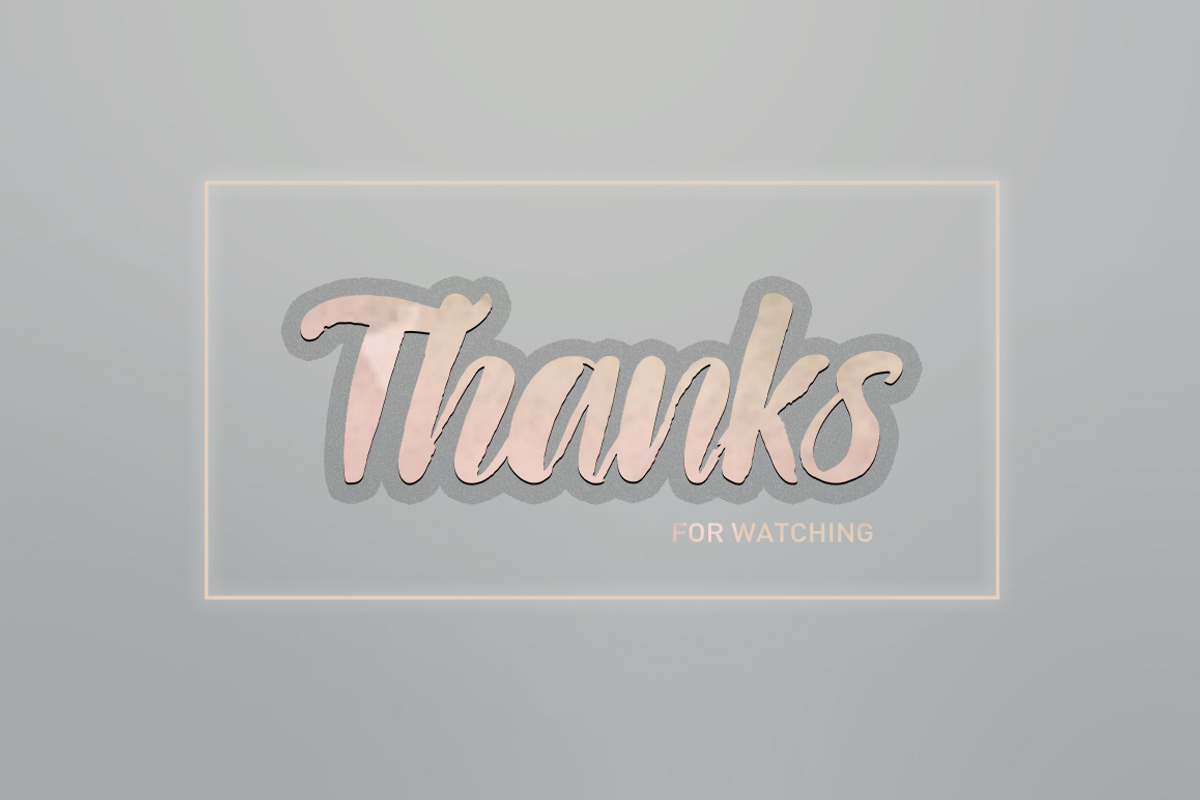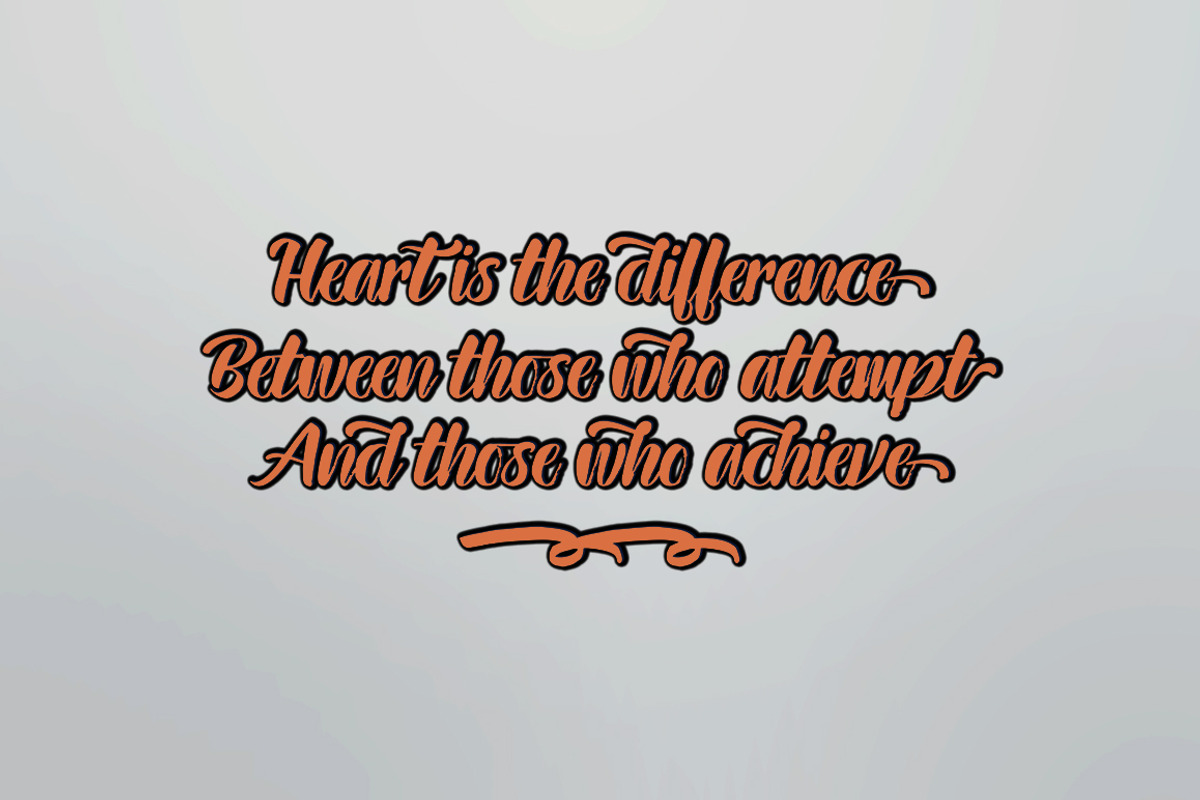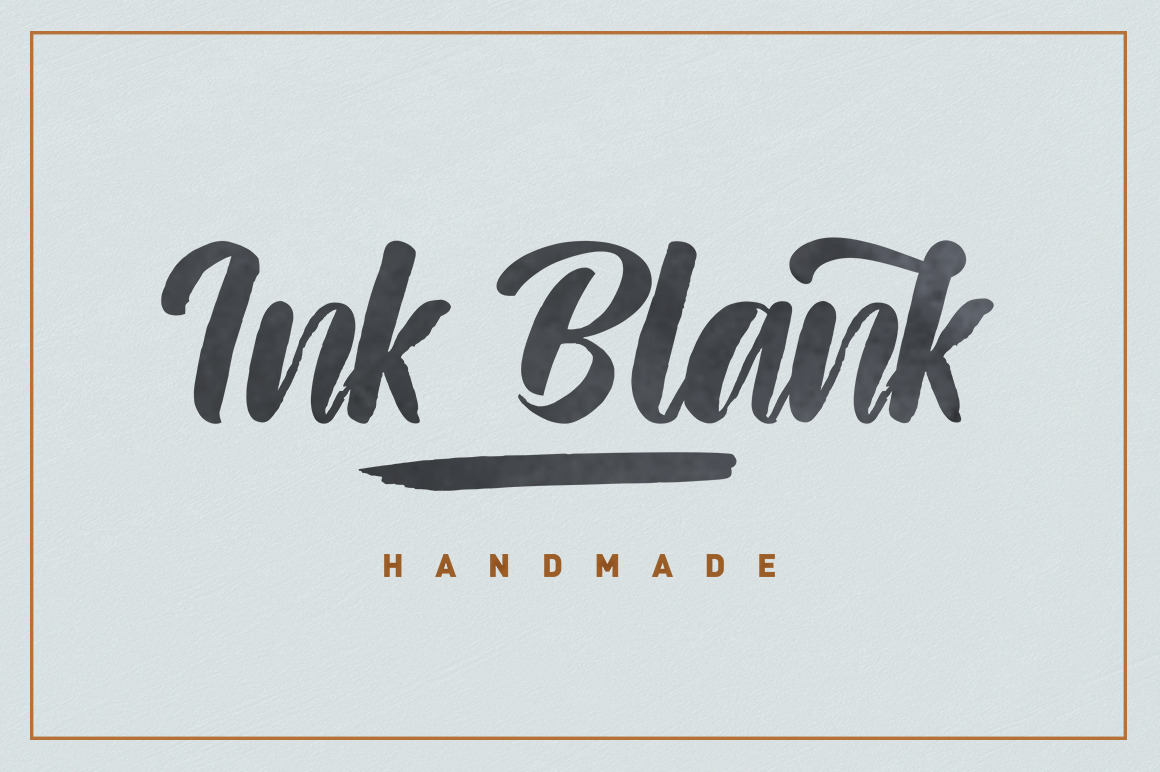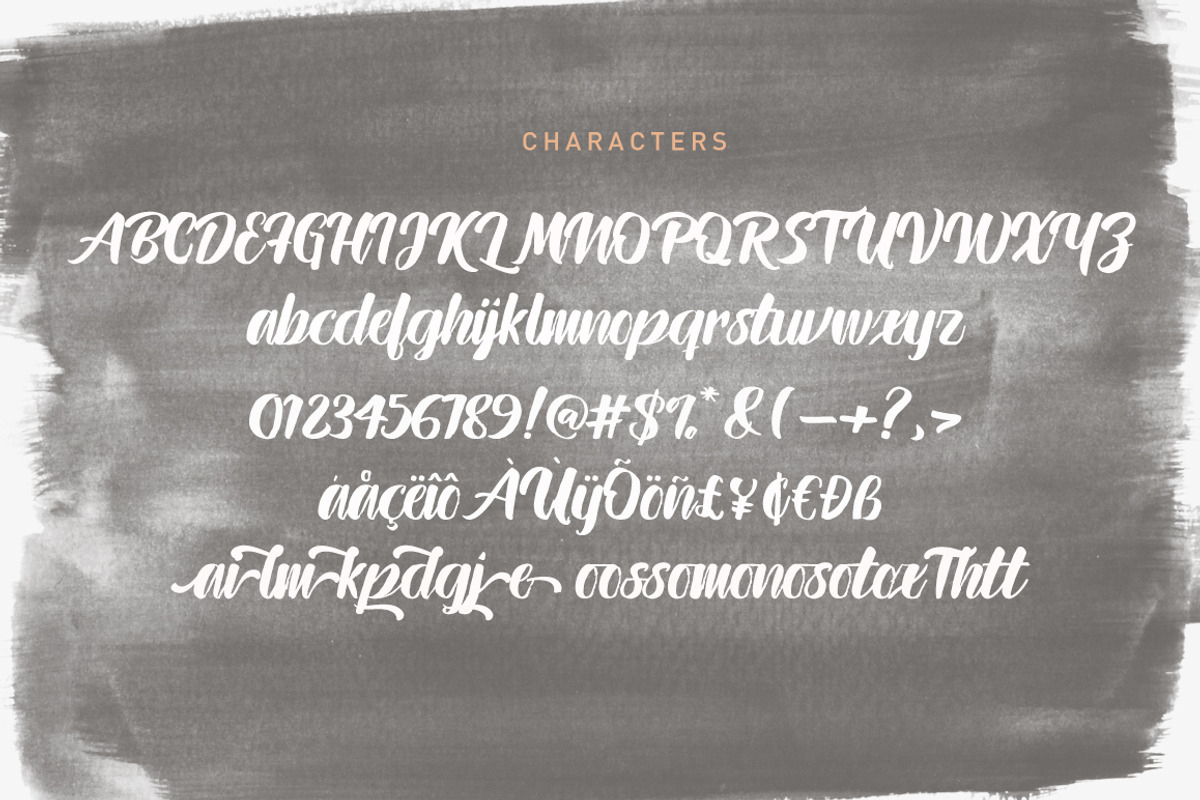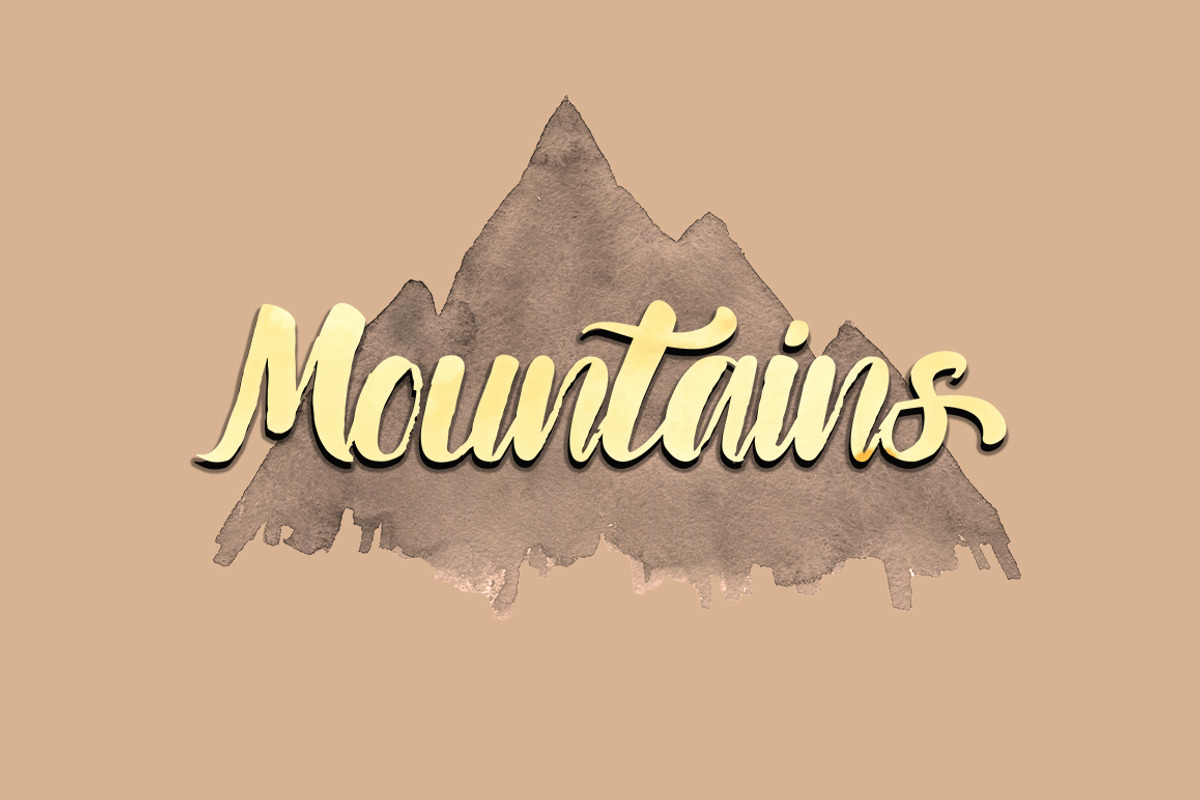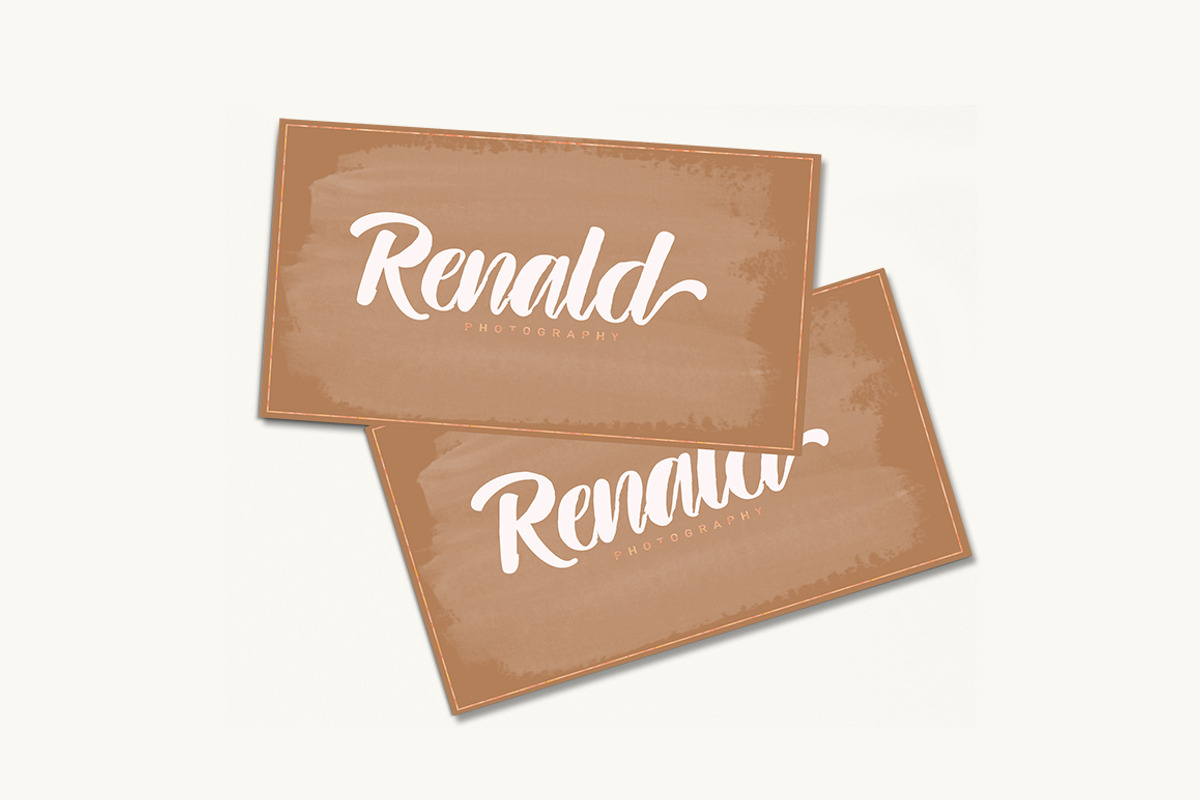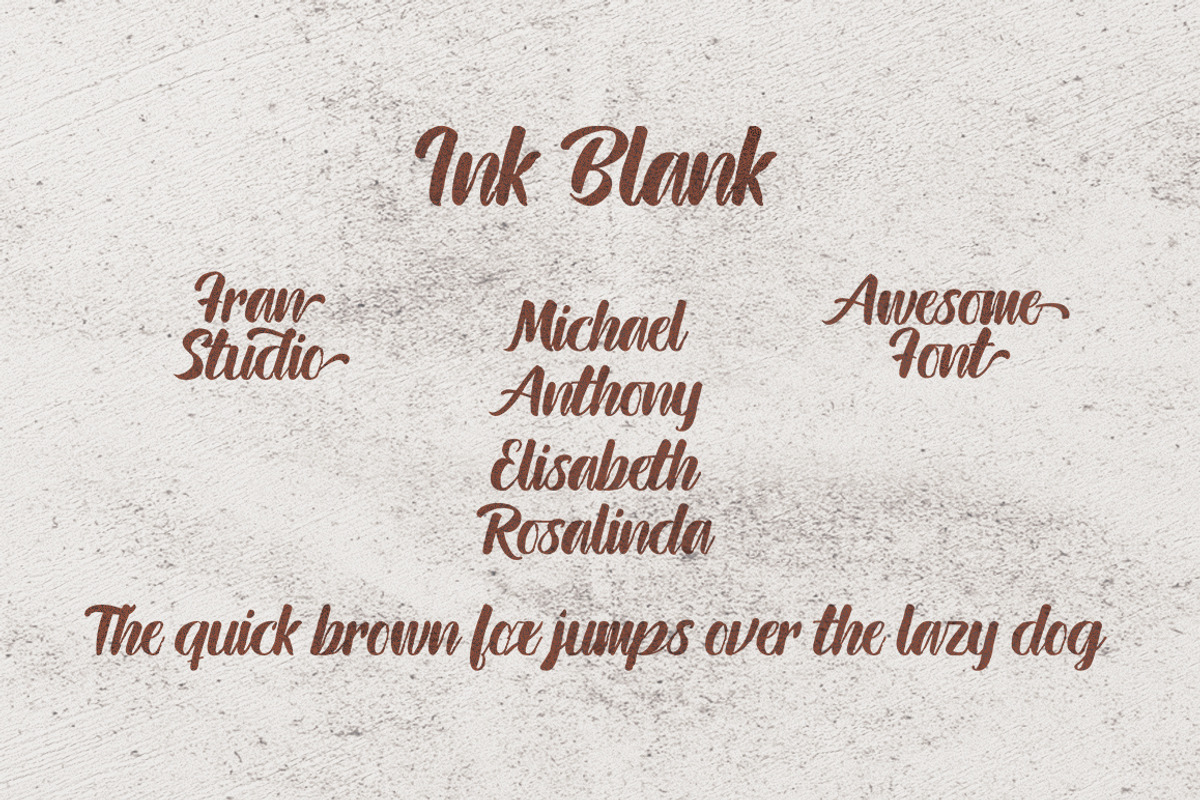
Ink blank brush font
Ink blank is a new, very interesting brushed font. This font family is perfect for branding projects, logos, product packaging, posters, invitations, greeting cards, news, blogs, everything including personal charm and more.
Ink blank offers OpenType features, some ligatures and swashes, initial and terminal letters, and International support for most Western Languages.